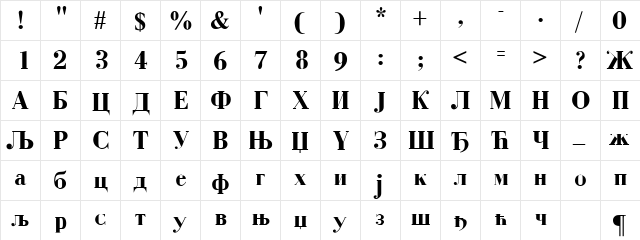
Czar Cirilica Bold
Design Context for Czar Cirilica Typeface
Czar Cirilica offers clean, dependable letterforms without strong stylistic allegiance, making it a practical choice for designers who need flexibility. The heavy weight commands attention and anchors typographic hierarchies.